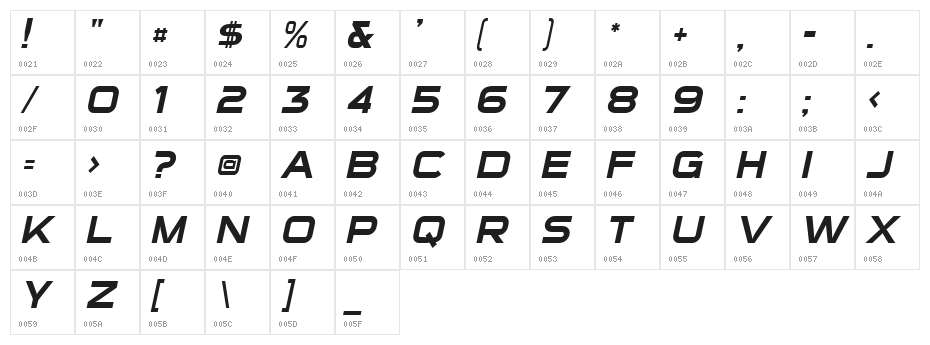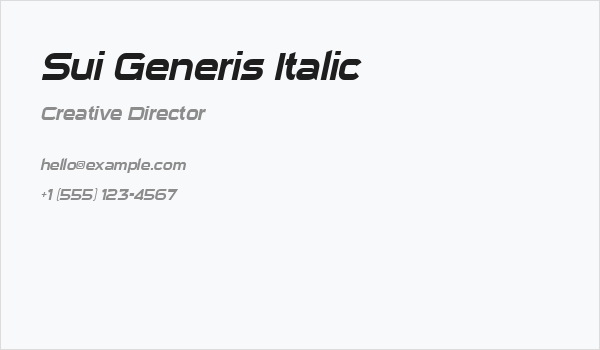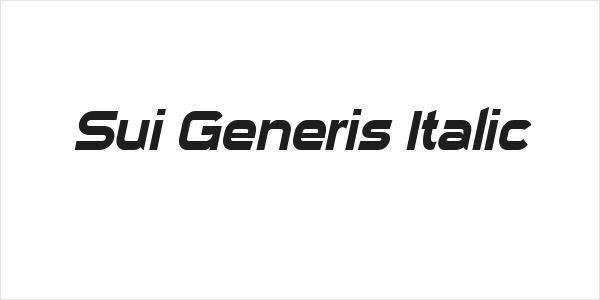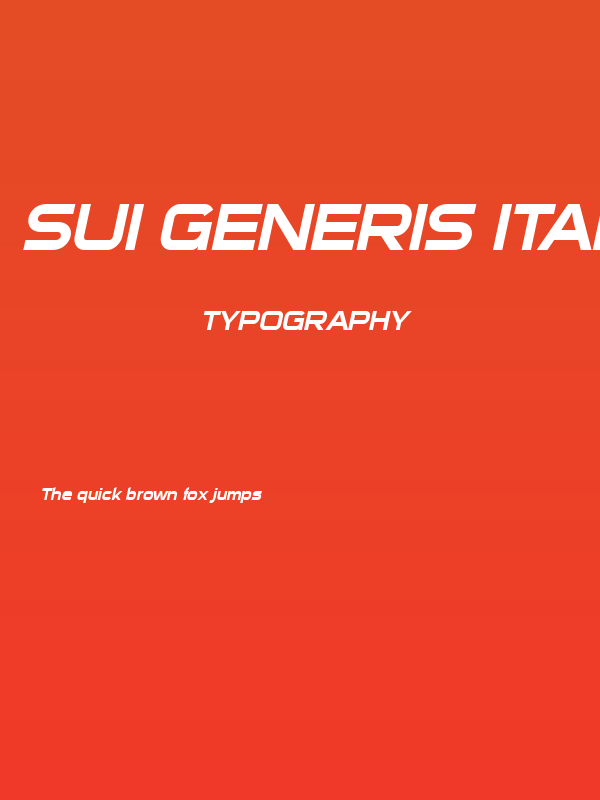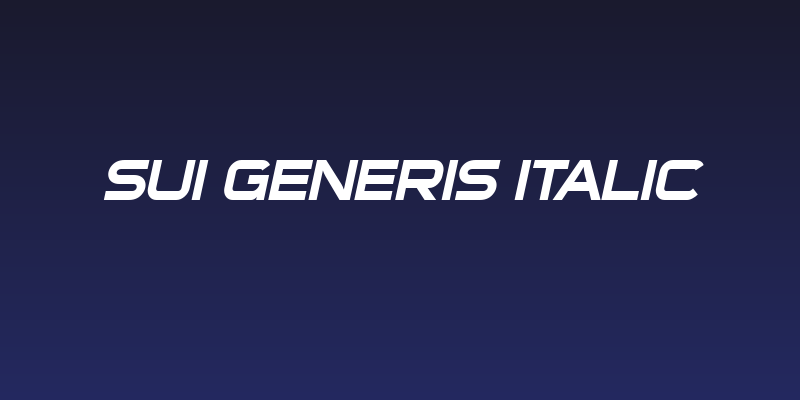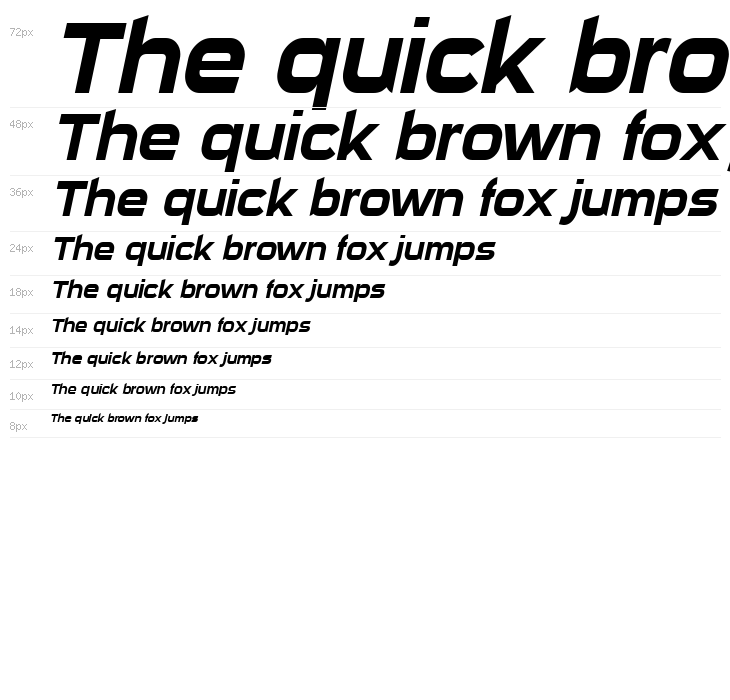
Sui Generis Italic Font
Sui Generis Italic Description
This font features a sleek, italicized design with a modern and dynamic appearance. The characters are slightly slanted, giving a sense of motion and speed. The strokes are consistent in thickness, providing a uniform look across all characters. The uppercase letters are bold and assertive, while the lowercase letters maintain a smooth flow. The numerals are clear and distinct, ensuring readability. Special characters are well-integrated, matching the overall style of the font.
| Use Case | Logos, Headlines, Advertising |
| Proposed Projects | Ideal for branding, sports team logos, automotive designs, and dynamic advertising campaigns. |